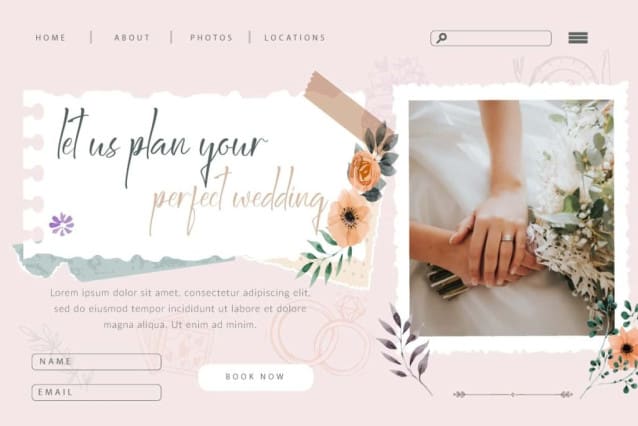
Bulan Aksara Font
Bulan Aksara Font is a beautiful handcrafted signature script with personal appeal that comes with modern chic signature font with an elegant style. This handwritten script looks natural and is perfect to enhance your next design project as it truly gives a realistic handwriting style. Ideal for both business and personal use, it’s a versatile choice for bridal boutique, clothing brand, cosmetic, fashion, florist, restaurant, salon, skincare, spa, wedding organizer, and much more.
Bulan Aksara Font includes a complete set of Basic Uppercase and Lowercase Characters, Numbers, Punctuation Marks and Symbols. This aesthetic font has a stunning and attractive design. It can be used for greeting card, headers, invitations, label, mockup, quotes, signature logos, social media posts, sticker, tags, template, title, watermark, website, etc.